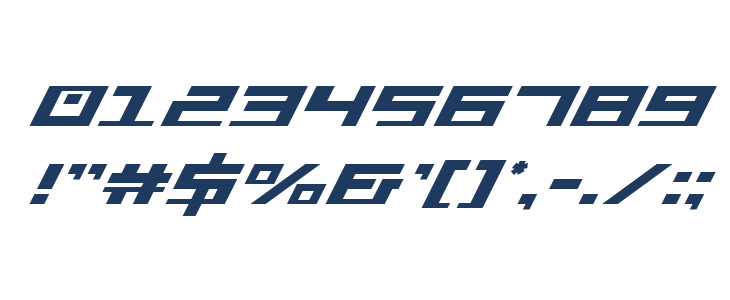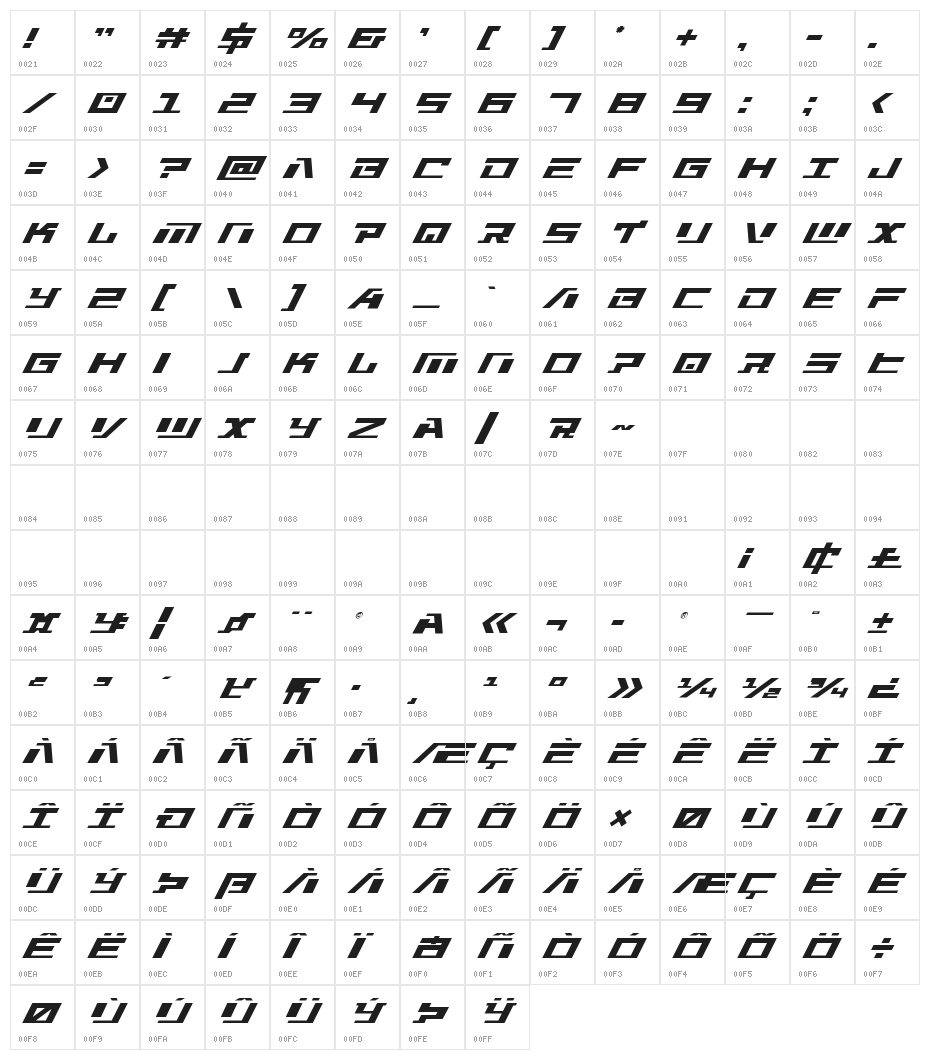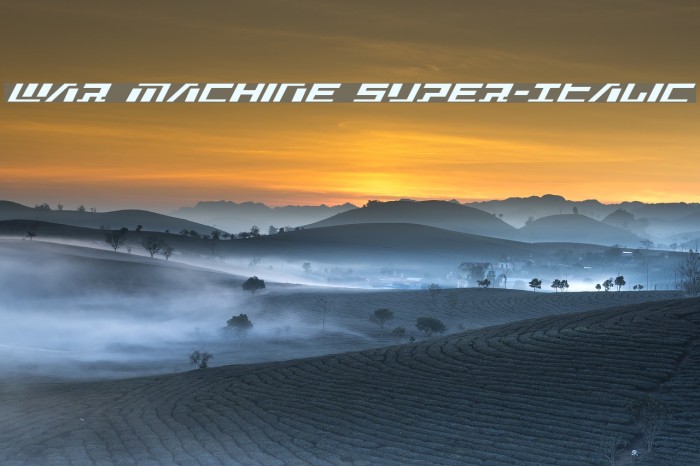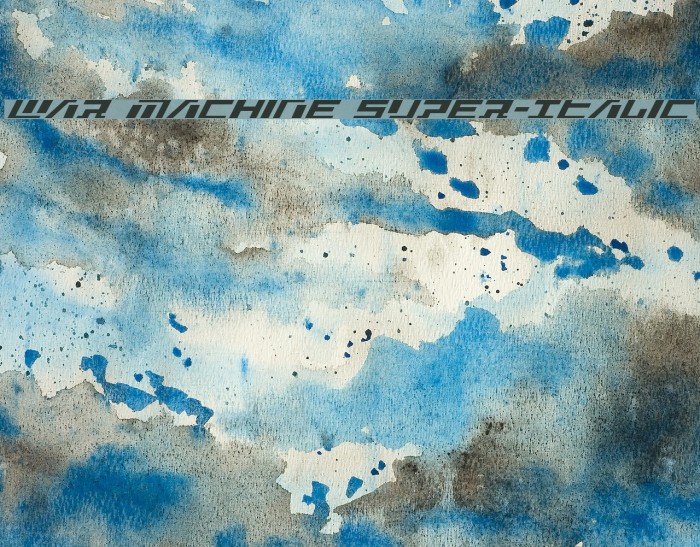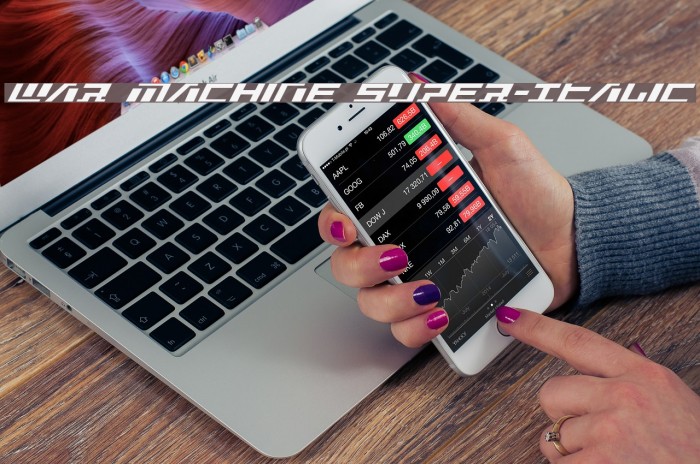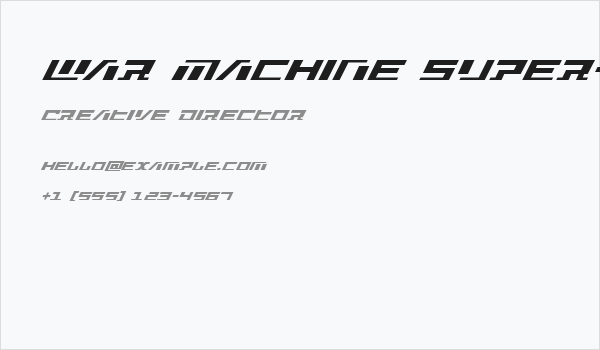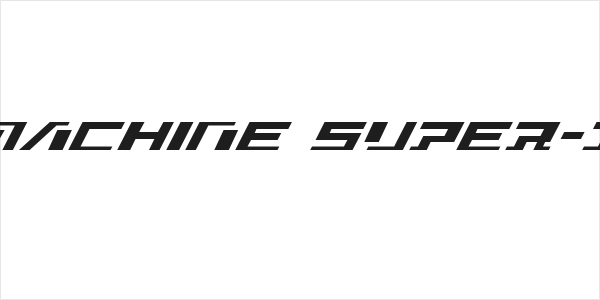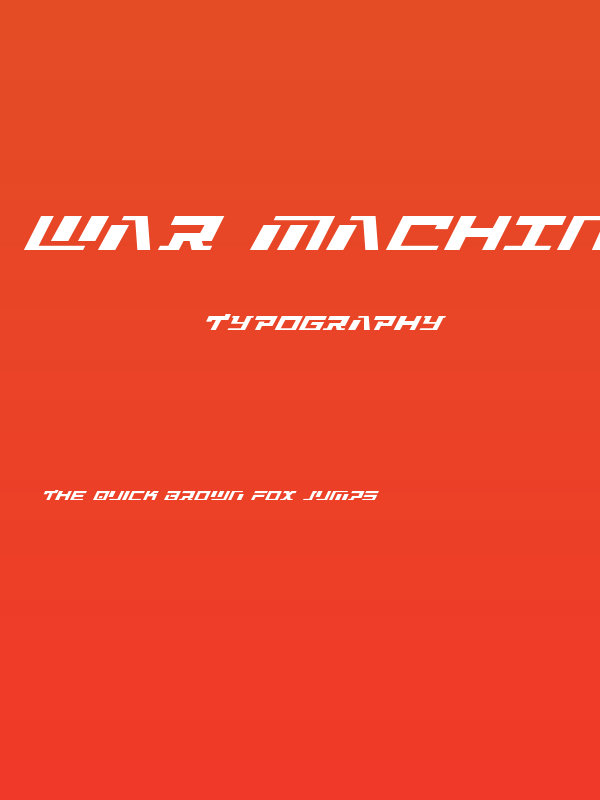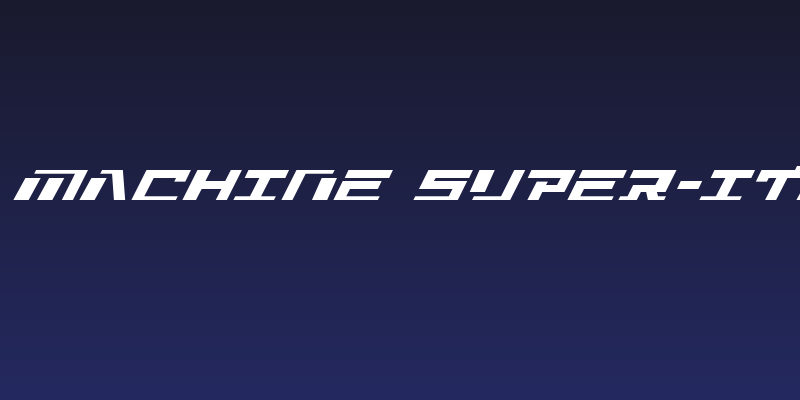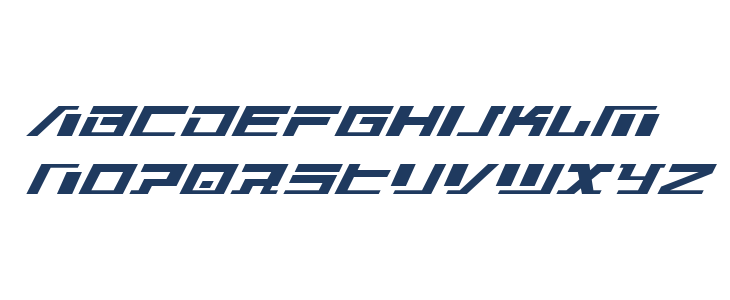
War Machine Super-Italic Font
War Machine Super-Italic Description
This font features a bold and dynamic style with a strong italic slant, giving it a futuristic and aggressive appearance. The characters are angular and geometric, with sharp edges and a consistent stroke width that conveys a sense of power and speed. The uppercase and lowercase letters maintain a uniform design, enhancing readability while preserving the font's unique aesthetic. The numerals and special characters are designed to match the overall style, ensuring cohesive visual impact across different uses. Its distinct look makes it suitable for projects that require a modern and edgy feel.
| Proposed Projects | Ideal for video game titles, movie posters, tech branding, and sports team logos. |